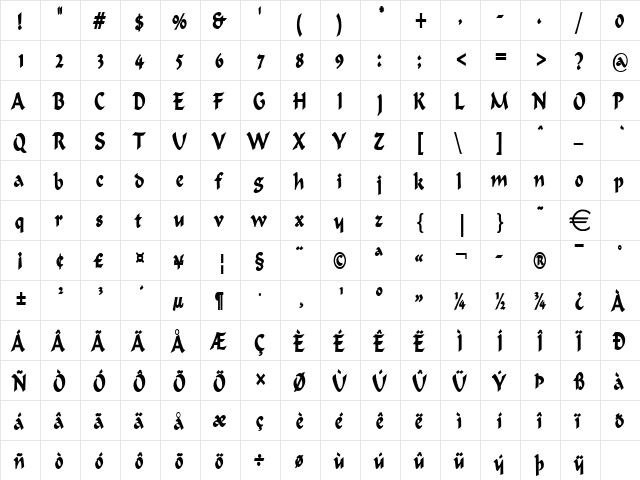
FlatBrushThin Bold Font Preview
FlatBrushThin Bold
FlatBrushThin Bold Font Details
Design Context for FlatBrushThin Typeface
FlatBrushThin brings a calligraphic fluidity to the page — its connecting strokes and expressive curves give it an unmistakably human quality. The heavy weight commands attention and anchors typographic hierarchies.